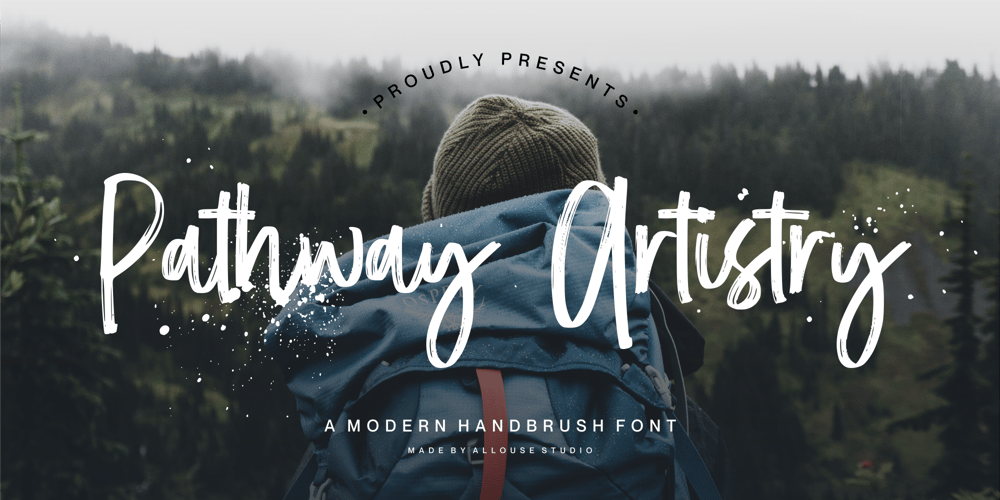
Pathway Artistry Font Family was designed by Fachrizal Yusuf and published by Allouse Studio. Pathway Artistry contains 1 styles and family package options. Proudly Present, Pathway Artistry A Modern Handbrush FontPathway Artistry is perfect for any titles, logo, product packaging, branding project, megazine, social media, wedding, or just used to express words above the background.Pathway Artistry also come with Multi-Lingual Support.Enjoy the font, feel free to comment or feedback, send me PM or email. Thank you!